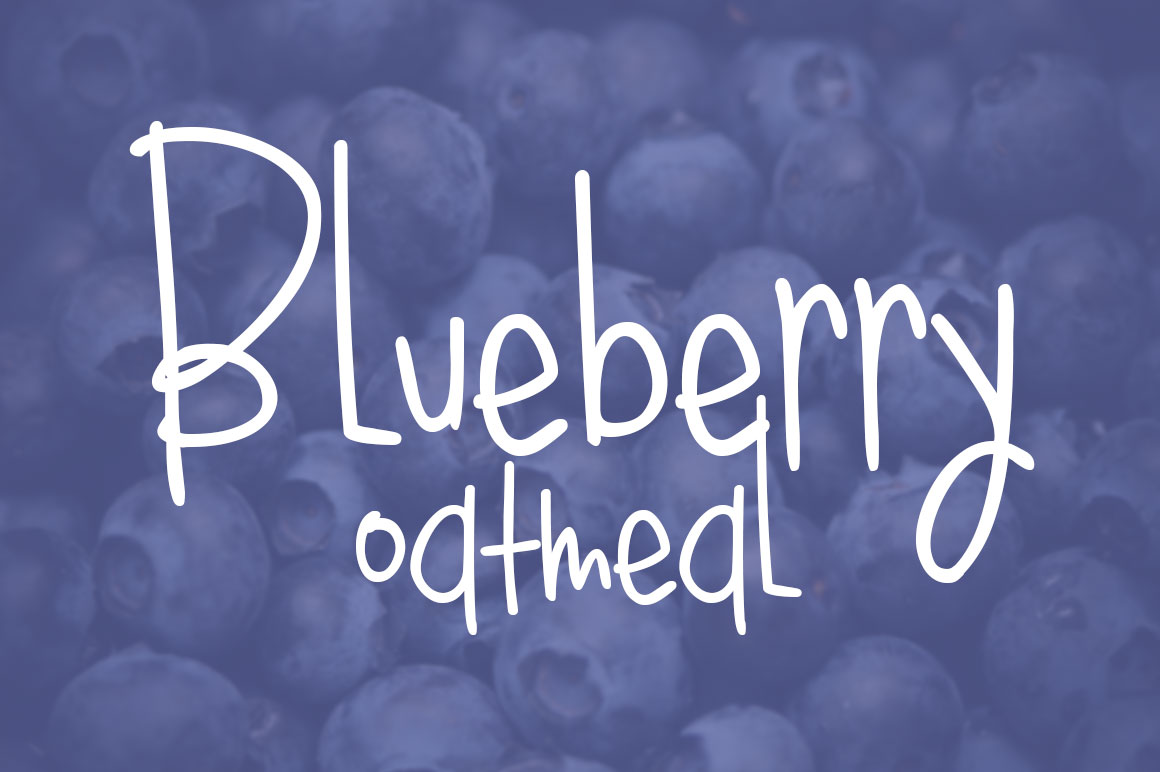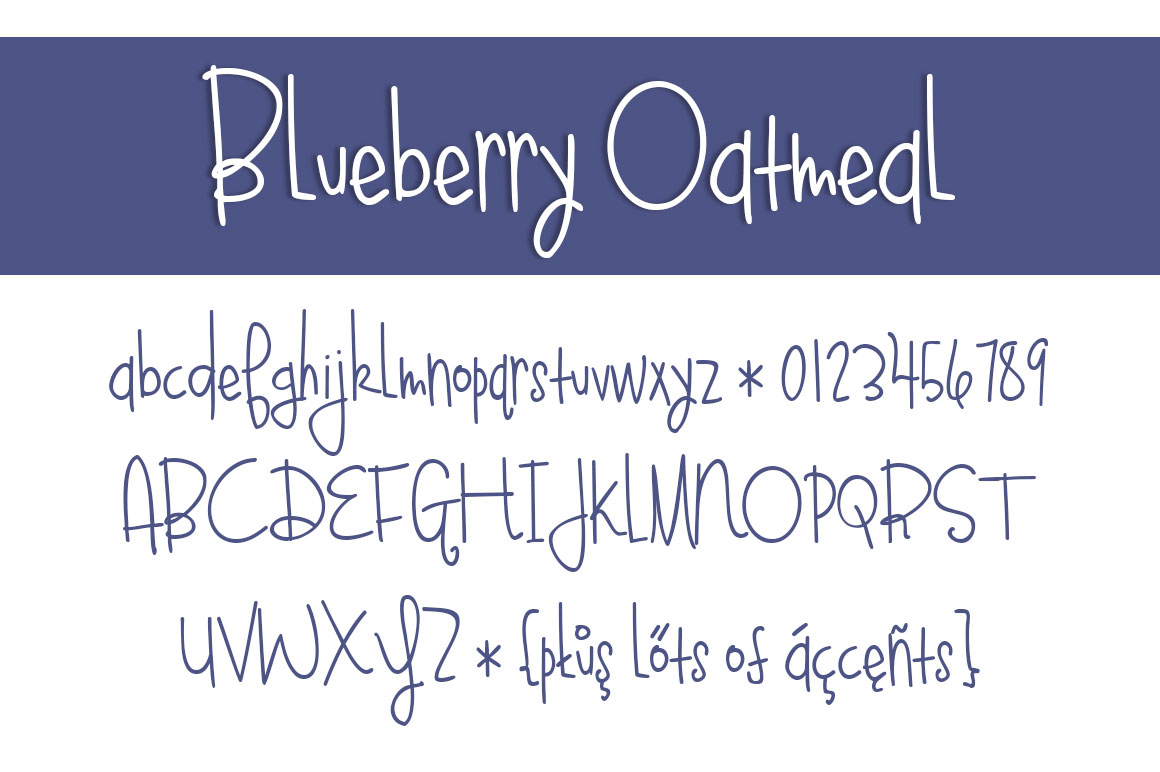
Blueberry Oatmeal Regular Font
About Blueberry Oatmeal Regular Font
Blueberry Oatmeal is a fun handwritten type with various letter heights and sizes that give it a unique look.